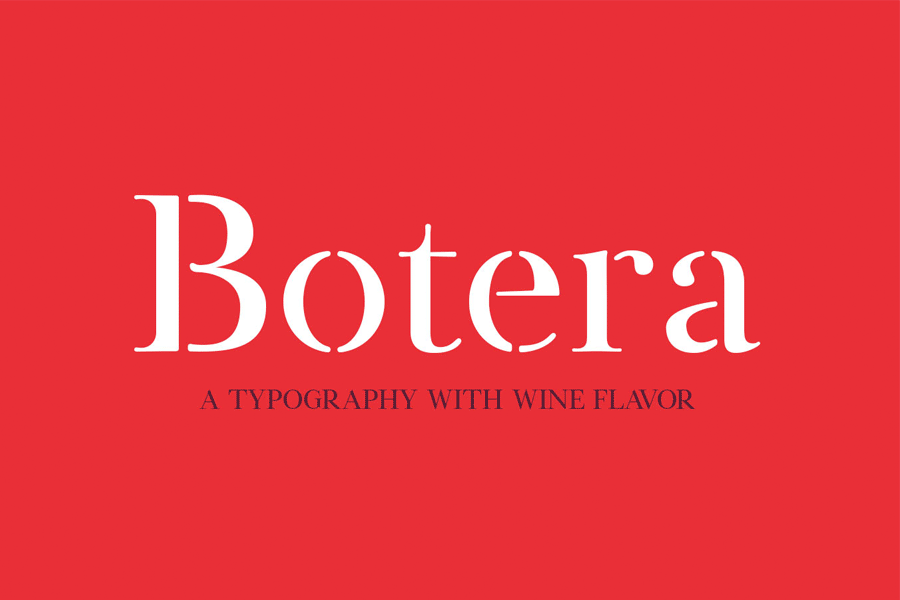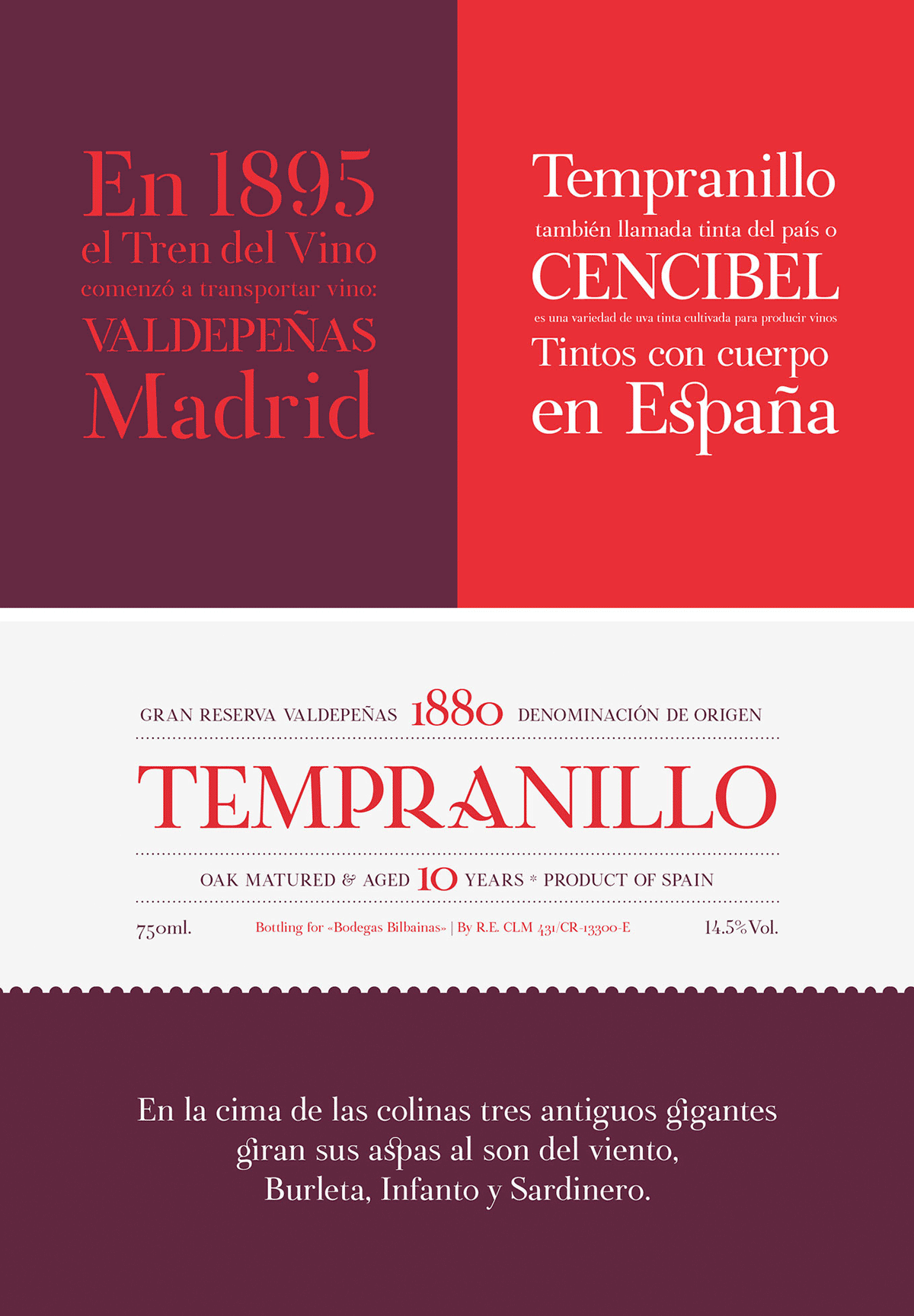
Botera is a elegant font that comes with serif and stencil style. It was initially created as a wine production typography, but now open to all and certainly is applicable to other field of designs too.
- Designer: Javi Montoya